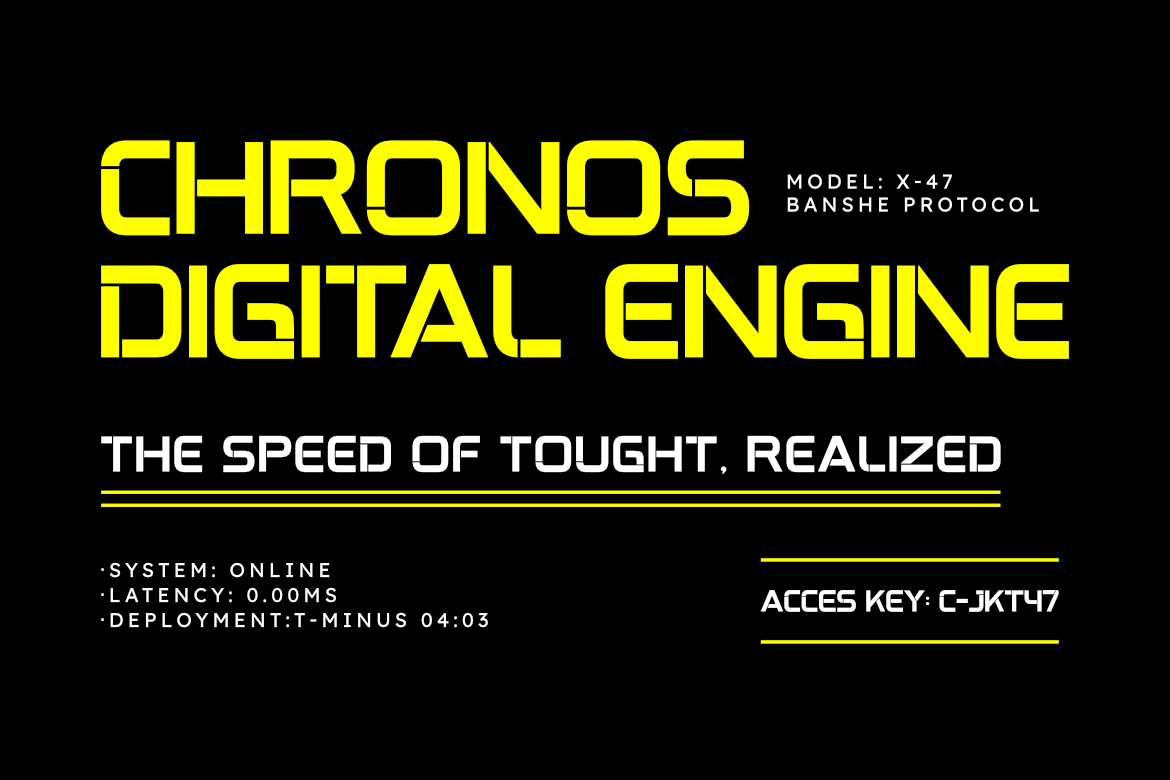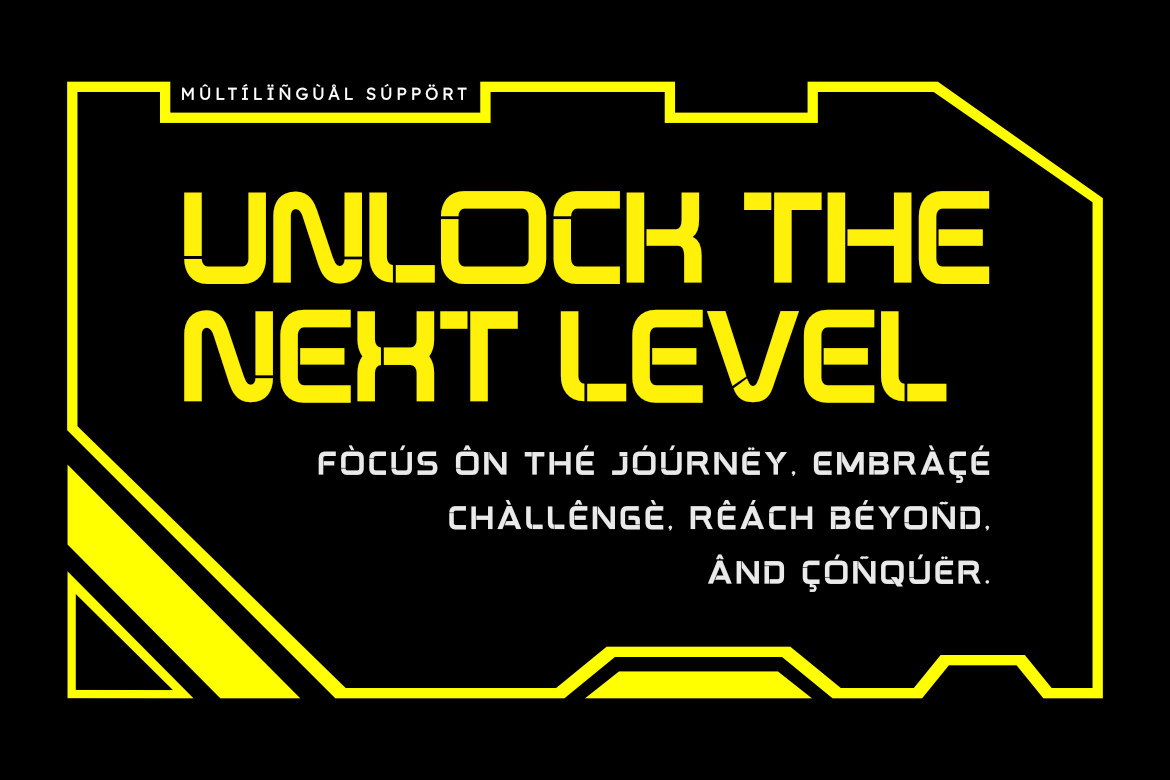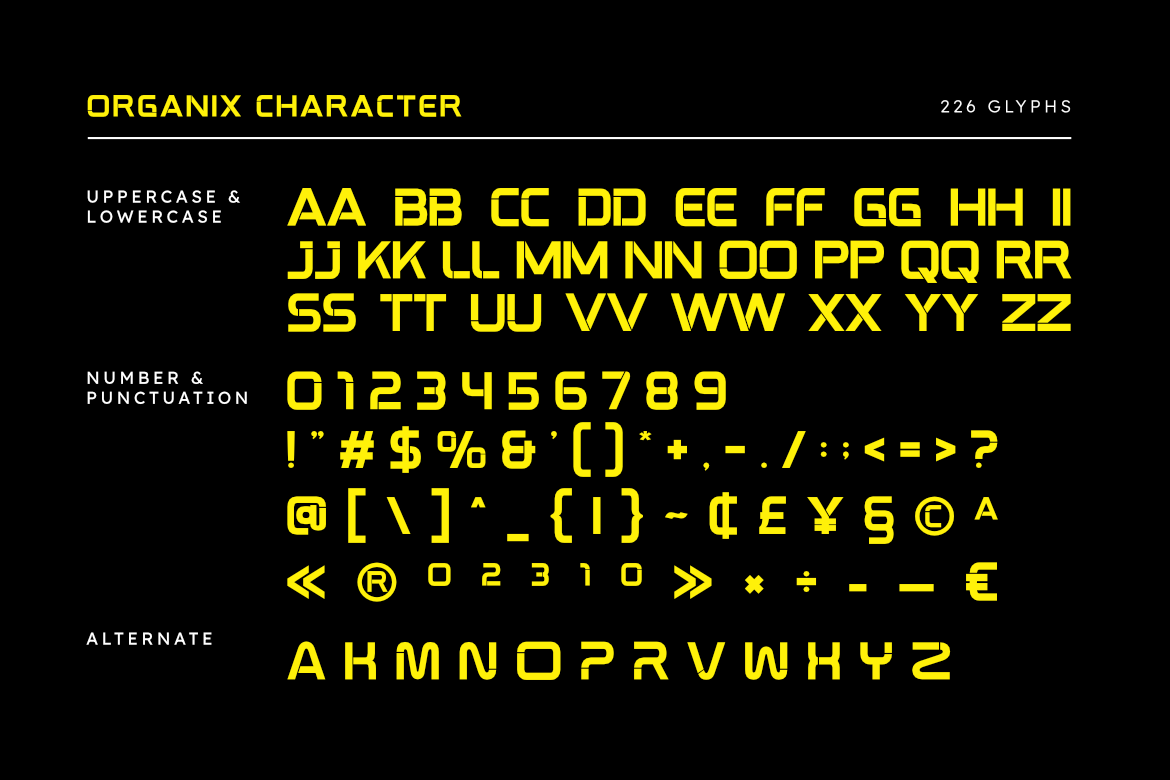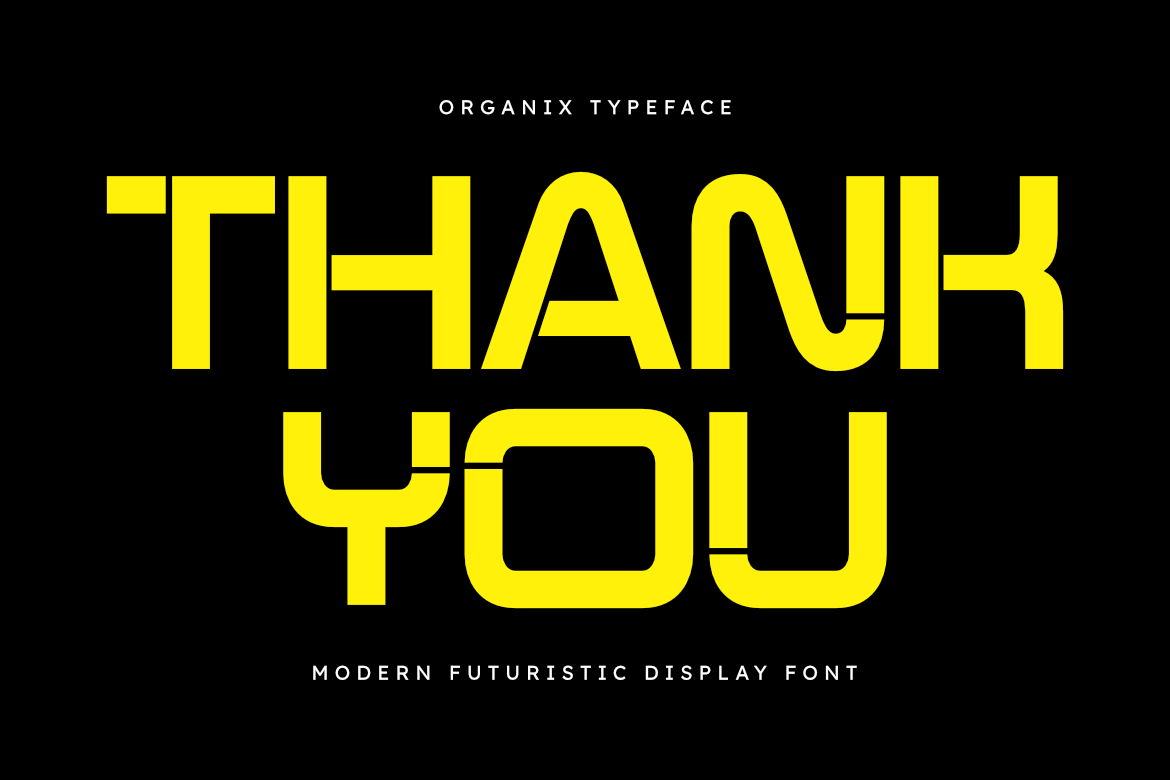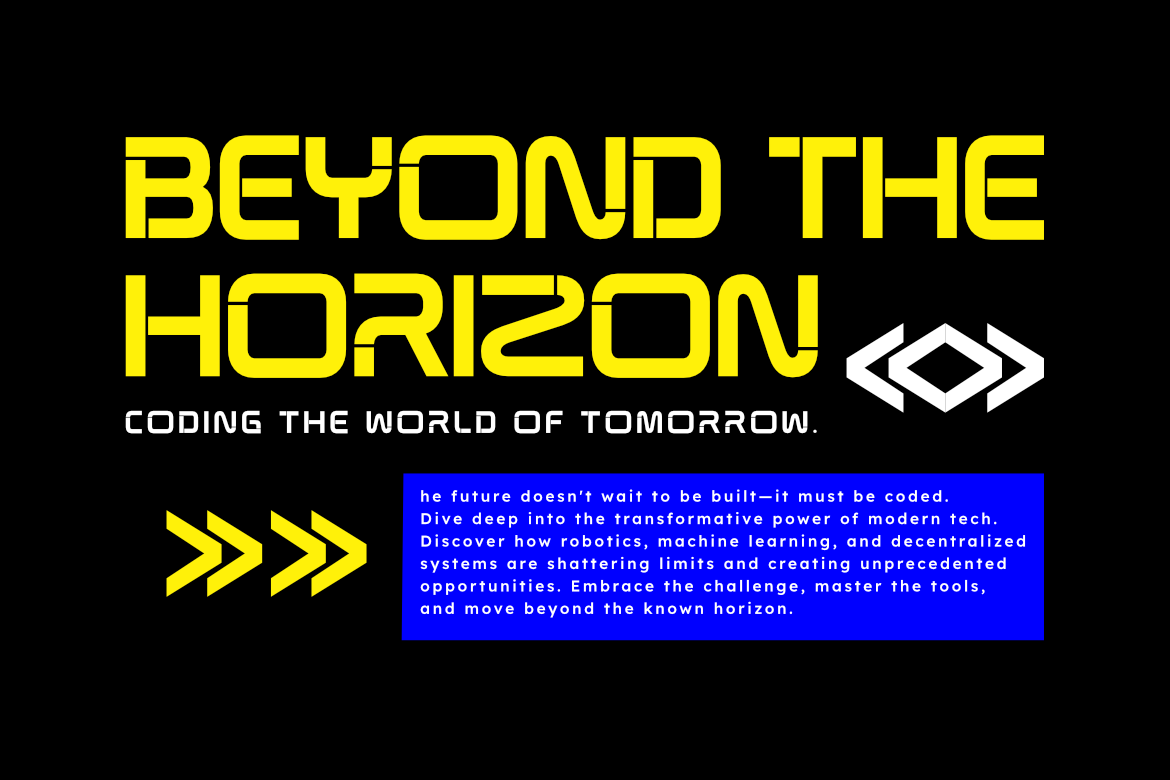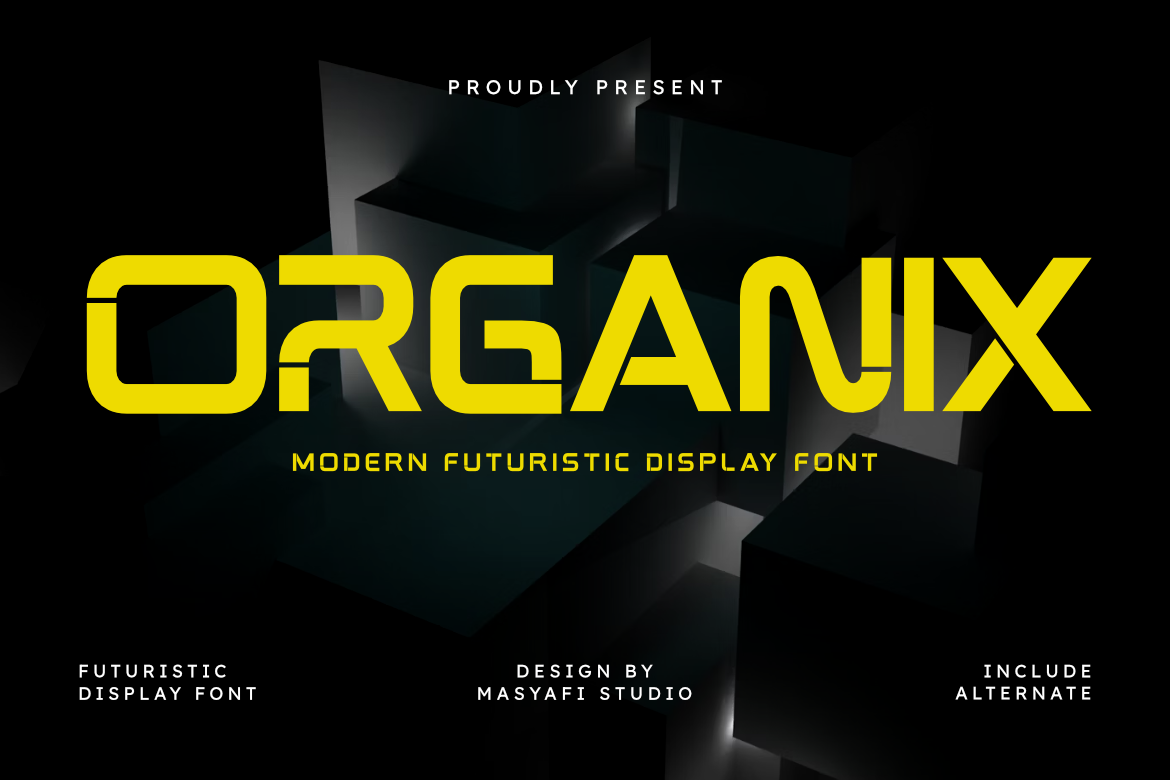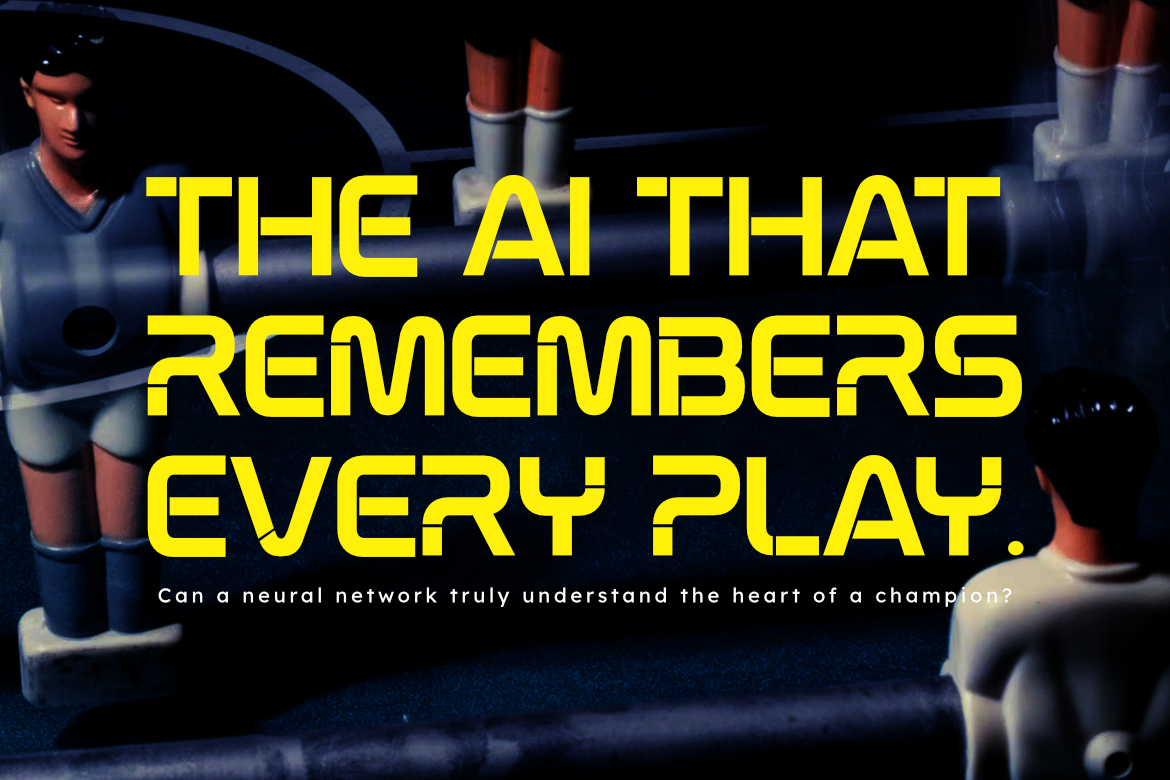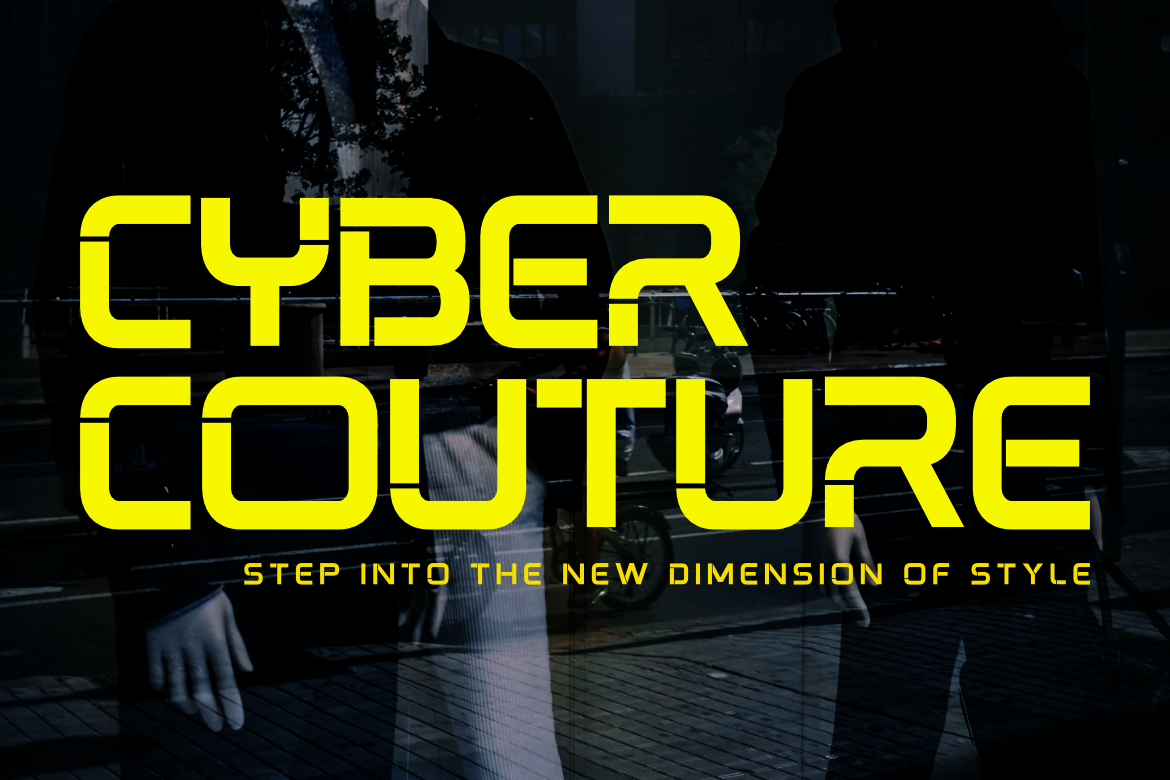
Organix - Modern Futuristic Display Font for Technology Brand Identity
Introducing Organix — a Modern Futuristic Display Font that combines sleek geometry with organic curves to create a visionary typographic style. Designed for forward-thinking creators, Organix delivers a perfect balance between sharp precision and smooth flow, making it ideal for any project that needs a modern, high-tech, and innovative feel.
Organix includes alternate characters for design flexibility, giving you multiple options to craft unique headlines, branding visuals, or futuristic interfaces. Whether you’re designing for tech startups, sci-fi posters, digital products, or UI/UX design, Organix ensures your typography stands out with a sophisticated and futuristic vibe.
Step into the future of design with Organix — where technology meets creativity.
- Uppercase Letters
- Numbers & Punctuation
- Alternates Included
- Futuristic Rounded Design
- Technology Branding
- Sci-Fi Posters & Titles
- Gaming Logos & UI Design
- Futuristic Product Packaging
- Modern Advertisements
- Innovation Campaigns